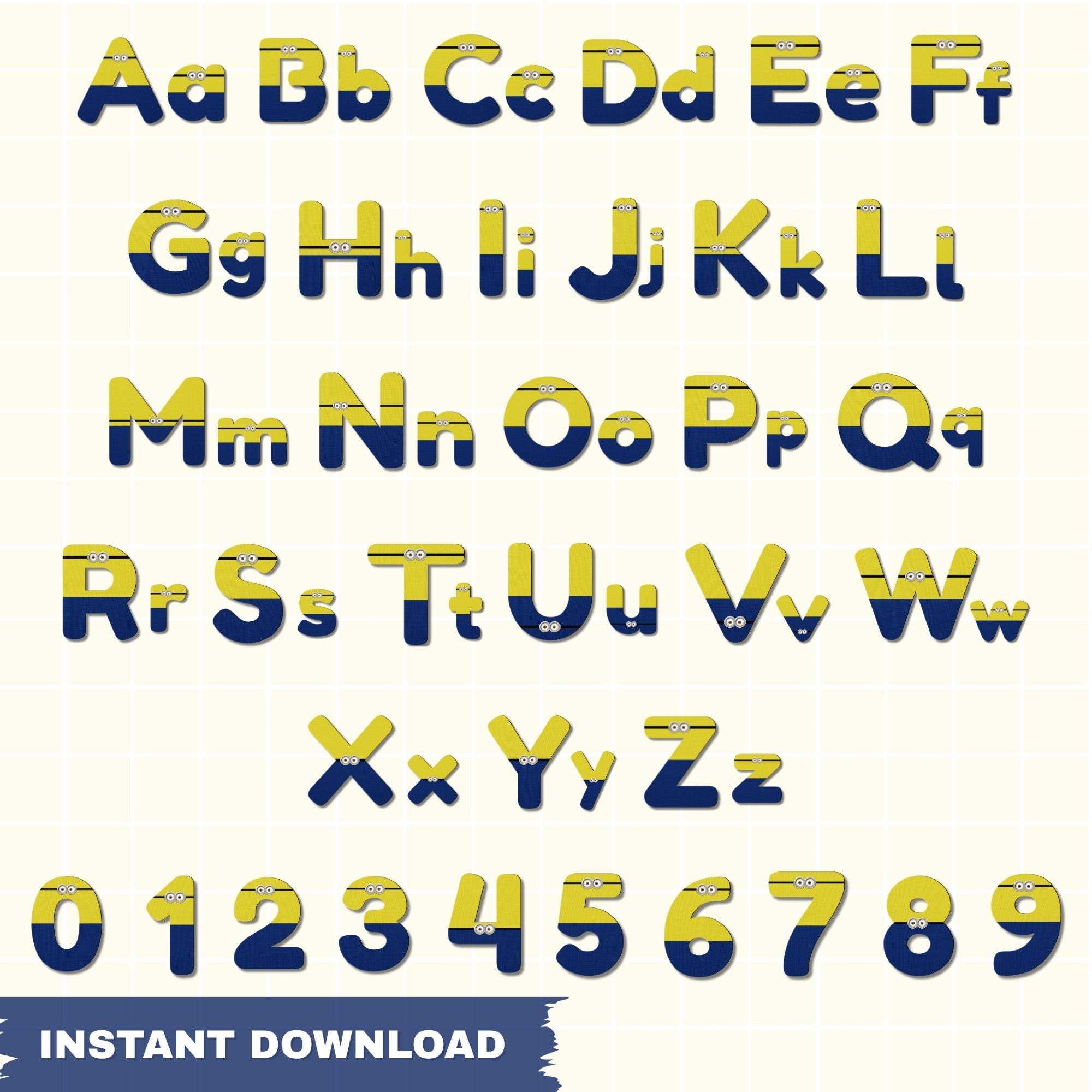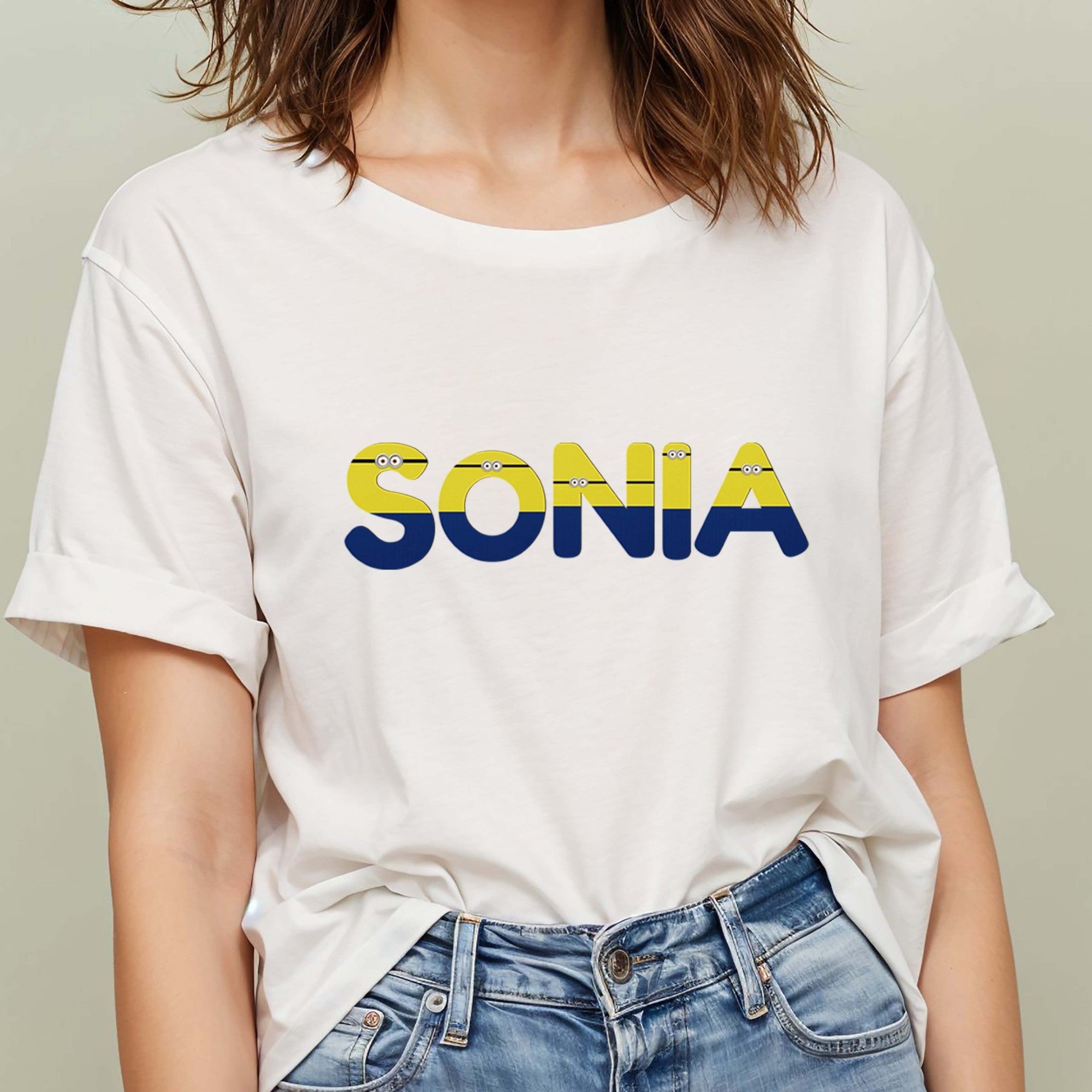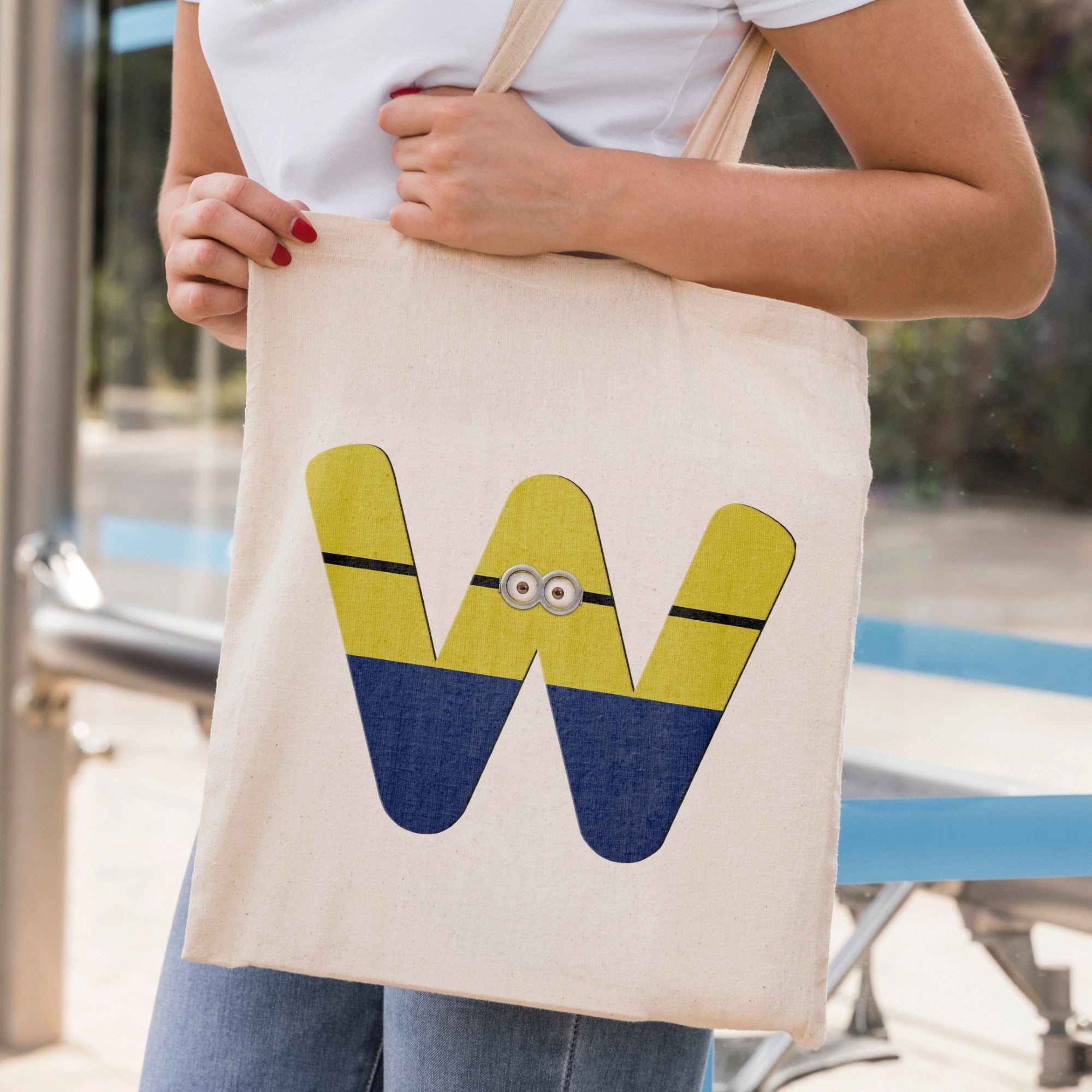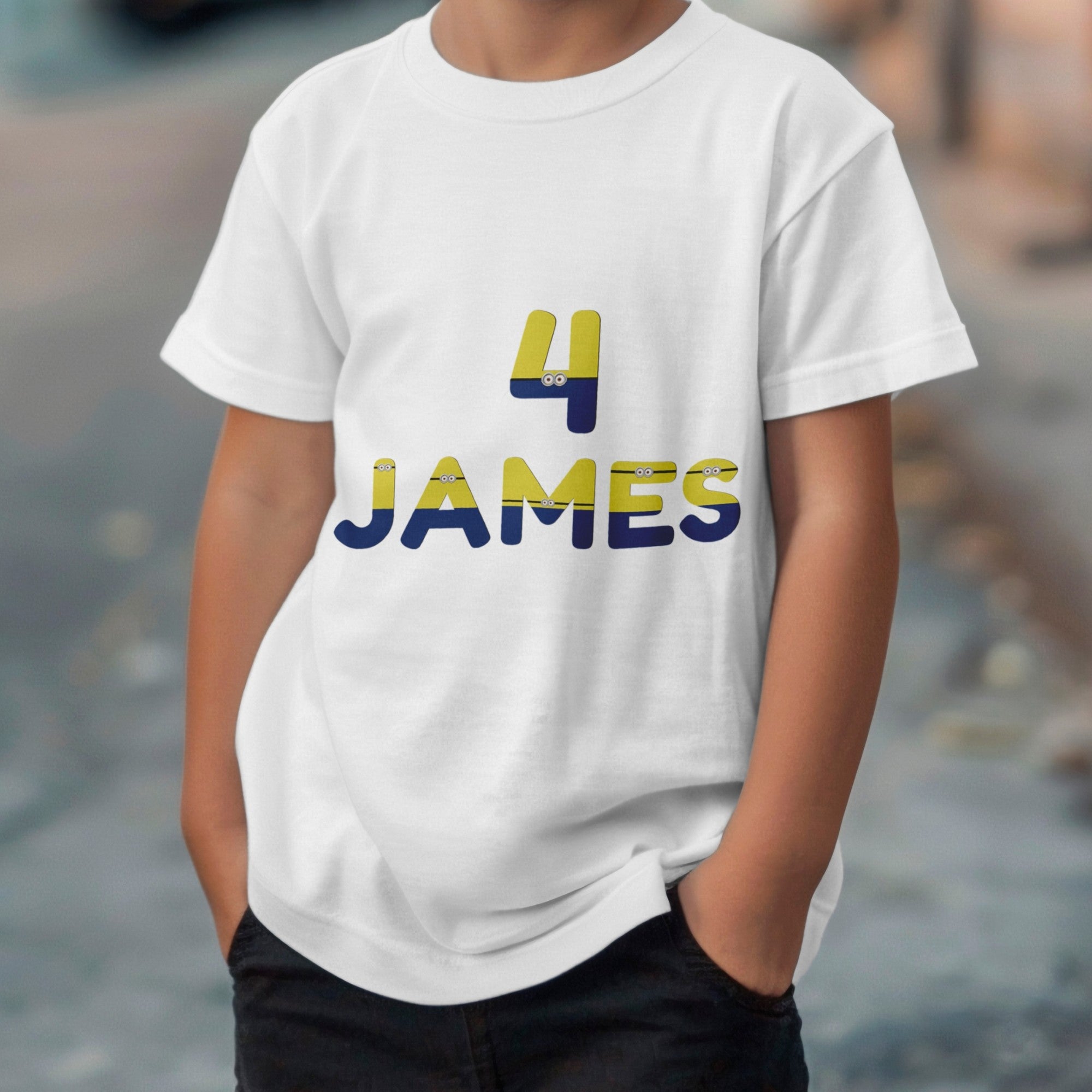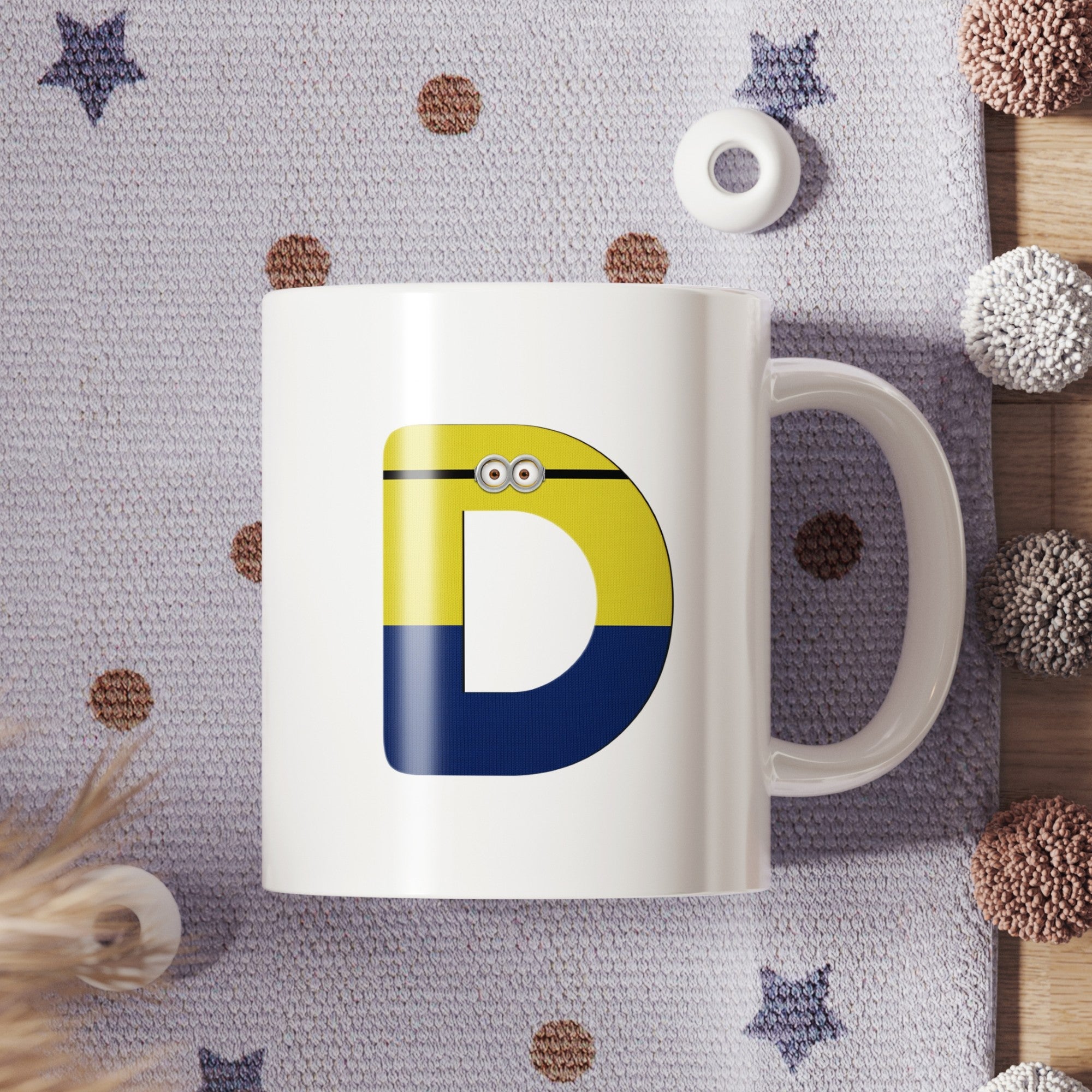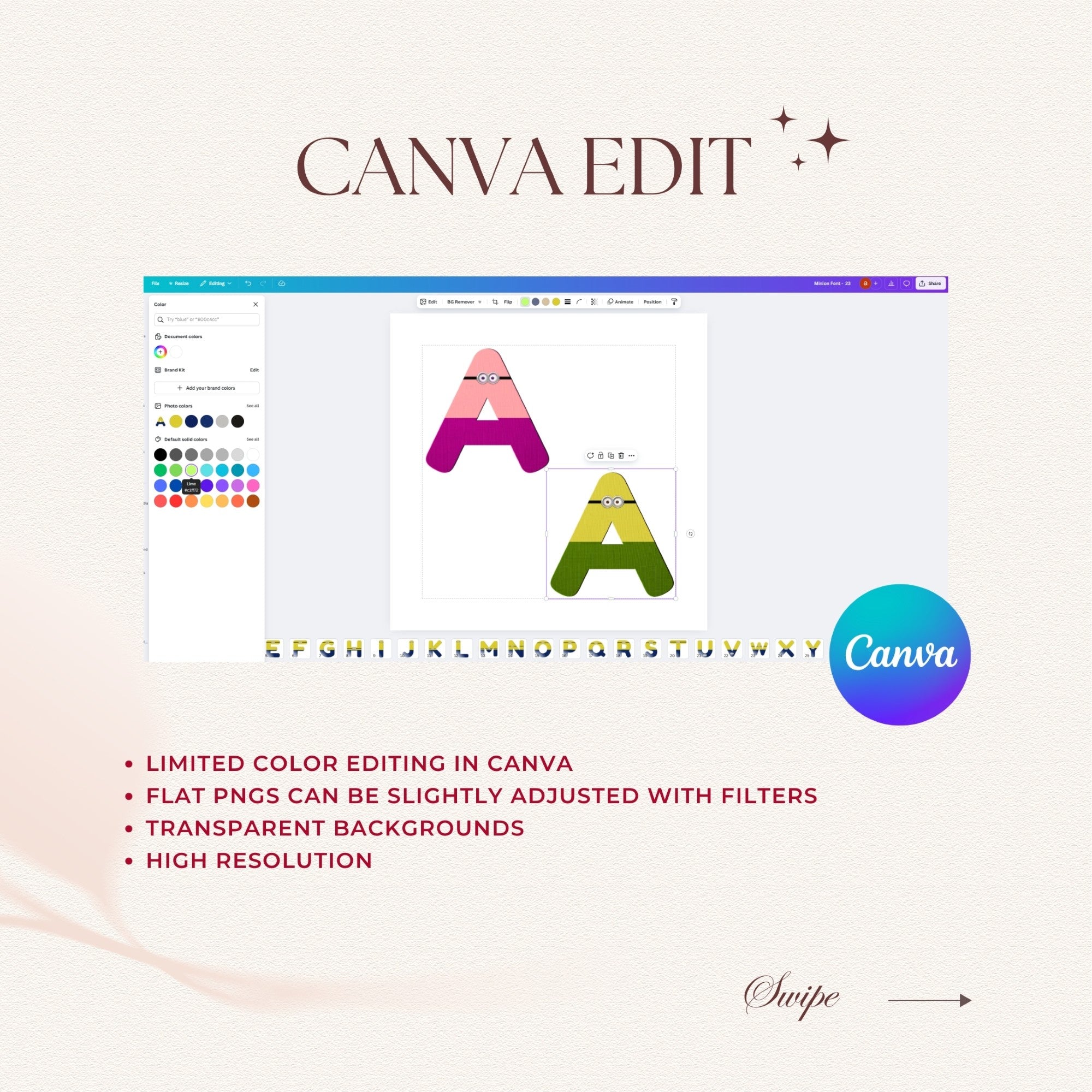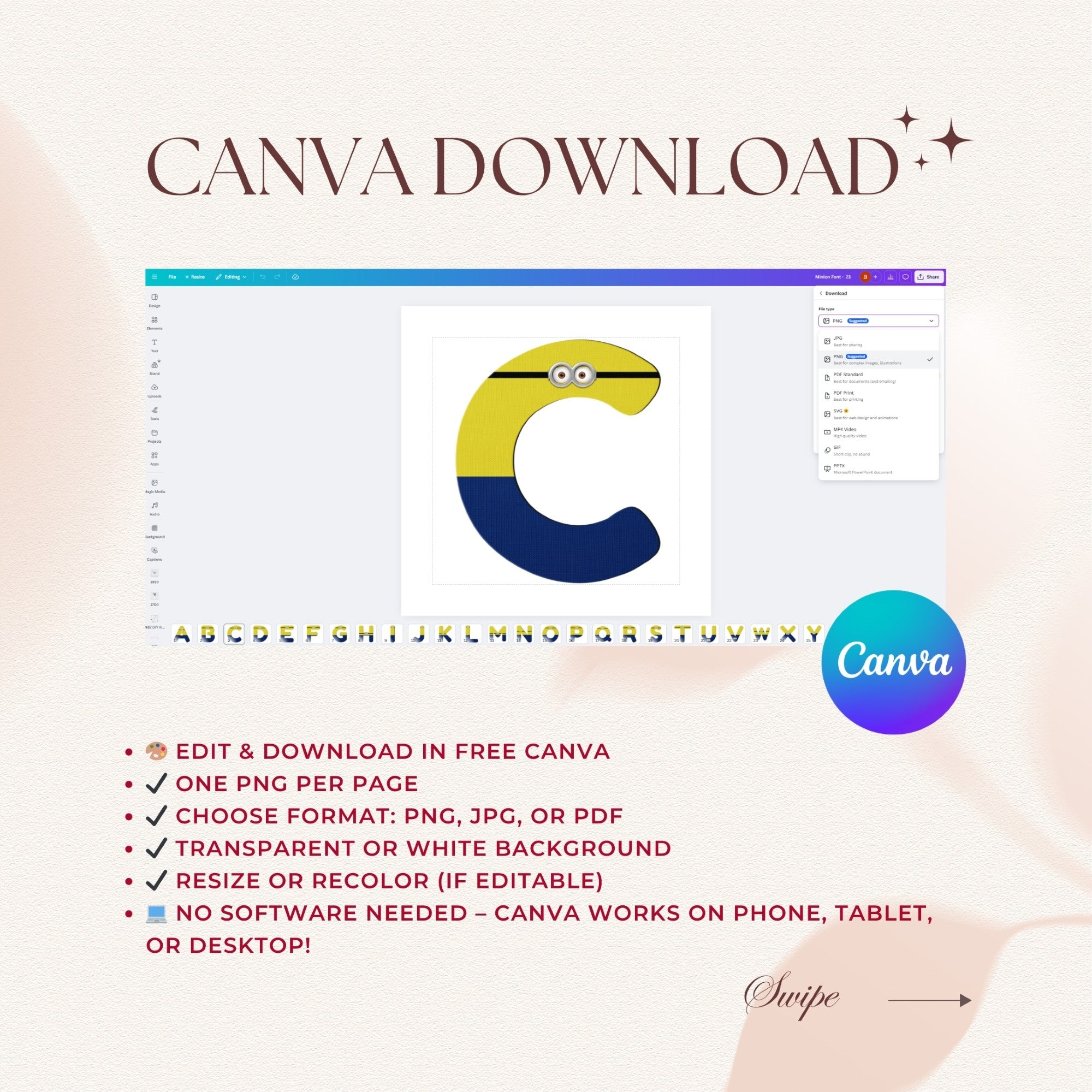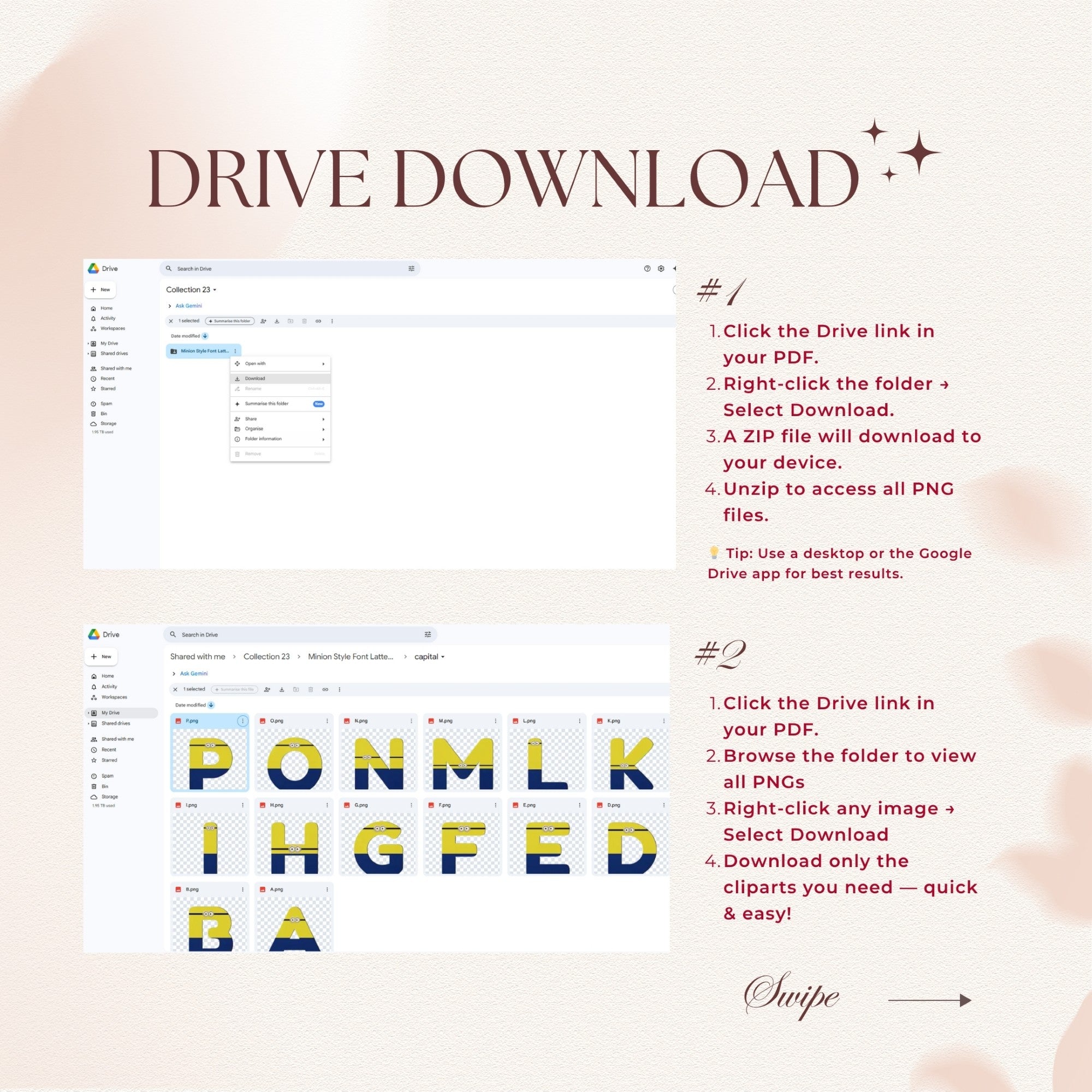
🍌 Get in on the fun with our Minions Font PNG Bundle! 🍌
This adorable digital collection features the entire A-Z alphabet and 0-9 numbers in a fun, Minions-themed blocky style. Perfect for creating personalized t-shirts, mugs, and decorations, this bundle is a must-have for fans of these mischievous characters.